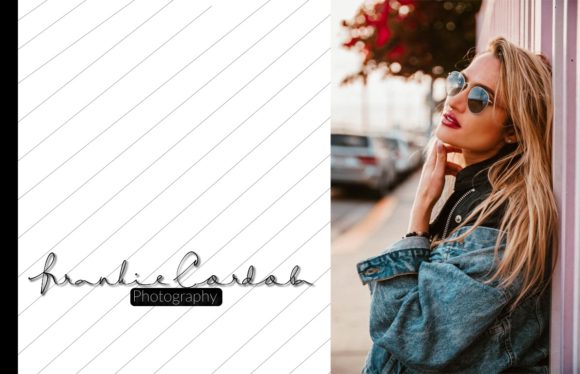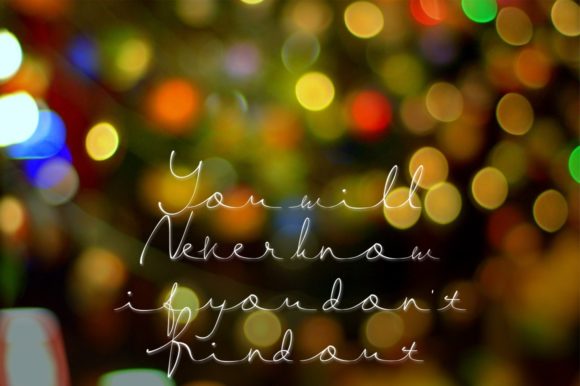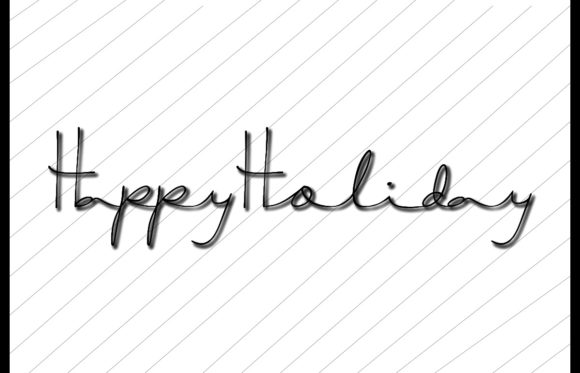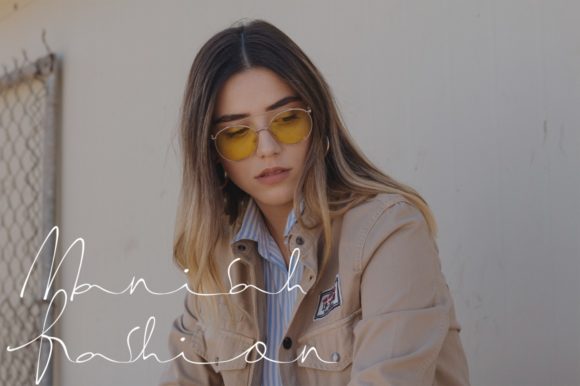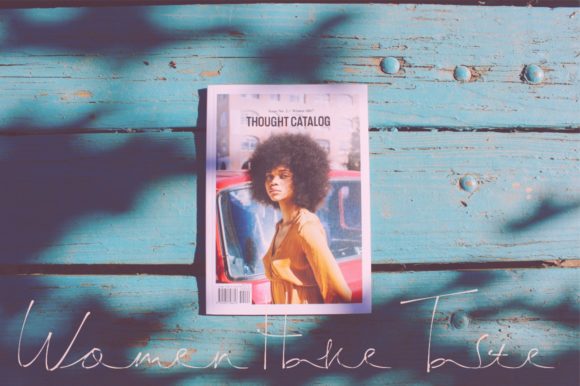
Introduction to Semayane Font
You’ve spent hours pouring over your creative project, carefully selecting every element to bring your vision to life. And then, it hits you – the perfect font to tie everything together. If you’re looking for a natural handwritten script that exudes elegance and sophistication, you’re in luck. The Semayane Font is a game-changer for designers, offering a minimalist style that adds a touch of refinement to any design.
Whether you’re working on a high-quality brochure, a website, or a social media campaign, the Semayane Font is a valuable design resource that can elevate your creative work. With its transparent background and high-quality design, you can rest assured that your project will stand out from the crowd.
And the best part? The Semayane Font is available for free download, making it an accessible addition to your design arsenal. In this article, we’ll dive deeper into the world of the Semayane Font and explore its many benefits for designers.
Key Features of Semayane Font
- High-quality, free download font perfect for creative projects and design resources.
- Unique, modern design with a transparent background, ideal for use on websites, social media, and other digital platforms.
- Includes a comprehensive character set, supporting multiple languages and making it a valuable resource for designers worldwide.
Honest Review: Semayane Font
I recently came across the Semayane Font, a free download that caught my attention for its unique design and high quality.
- What works well: ✨ The Semayane Font offers a range of stylish and modern designs, making it an excellent addition to any creative project. The transparent background feature also provides versatility in design applications.
However, I did encounter some limitations: ⚠️ The Semayane Font may not be suitable for all design projects, particularly those requiring a more classic or traditional look. Additionally, the font’s complexity may lead to some difficulties in customization.
Overall, I’m impressed with the Semayane Font’s design and functionality. It’s a valuable design resource for those looking for a unique and high-quality font. If you’re working on a creative project and need a stylish font, I’d definitely recommend giving the Semayane Font a try.
For optimal use, pair the Semayane Font with a transparent background to create a clean and minimalist design. Use the font in headings and titles to add a touch of sophistication to your design project. Common use cases include branding, marketing materials, and digital graphics.